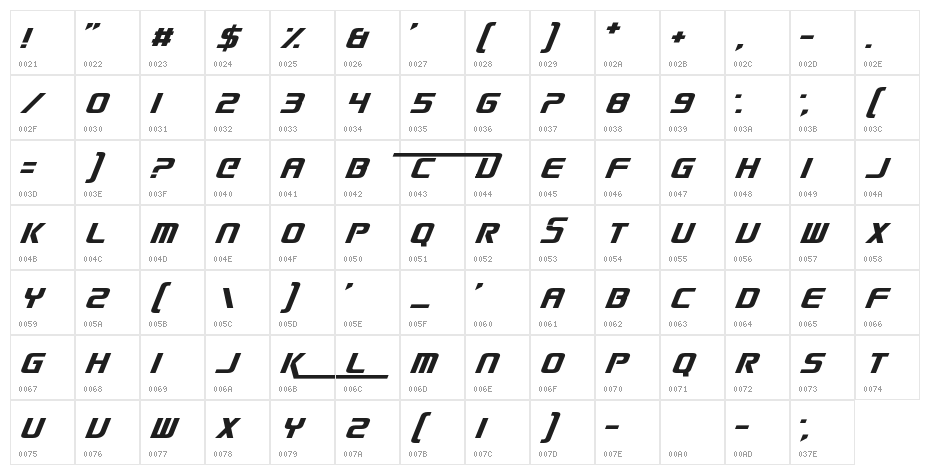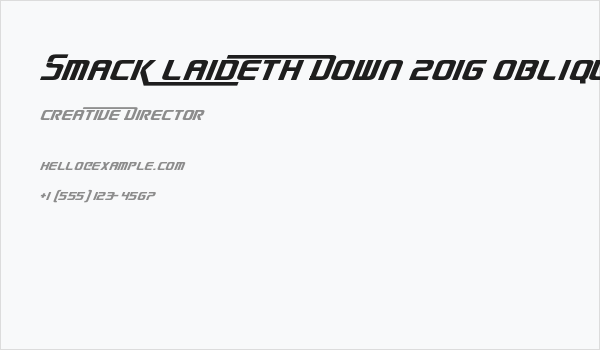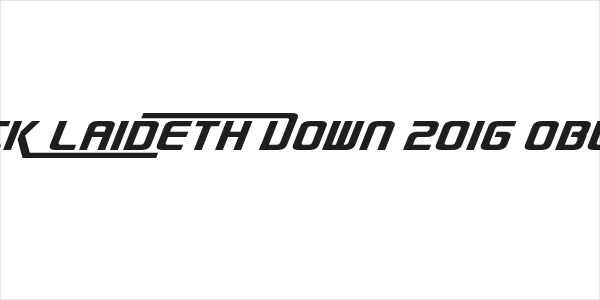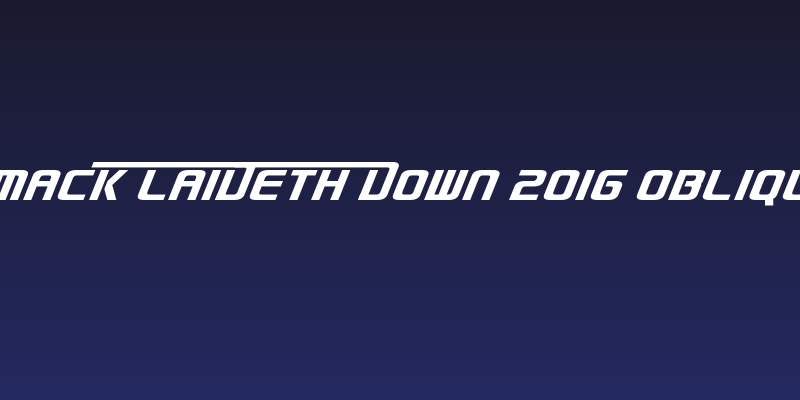
Smack Laideth Down 2016 Oblique Font
Smack Laideth Down 2016 Oblique Description
This font features a dynamic and futuristic design with a strong emphasis on angular lines and geometric shapes. The characters are slanted, giving an oblique appearance that suggests movement and speed. The uppercase and lowercase letters maintain a consistent style, with sharp edges and a uniform stroke width. The numerals are bold and clear, matching the overall aesthetic of the font. Special characters are designed to complement the letters, maintaining the same angular and sleek look. This font is ideal for projects that require a modern and energetic feel.
| Proposed Projects | Ideal for sports branding, tech-related designs, video game titles, and dynamic posters. |